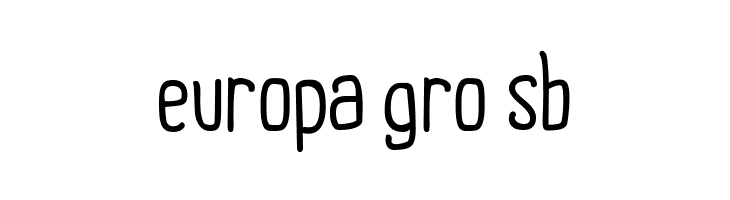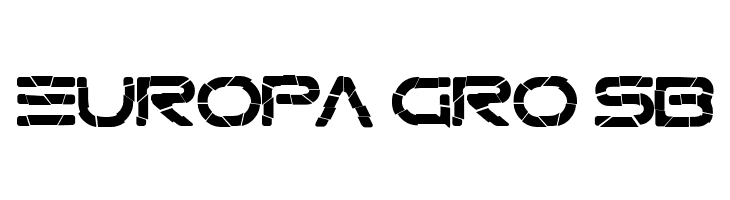
A sleek, modern font with geometric, monospaced characteristics.
( Roger White - web.archive.org/web/20120416090521/www.rogersfonts.org.uk/ )
A classic serif font with an open face design, offering elegance and readability.
( Jessy Naudin - facebook.com/Devlose )
A modern, geometric font with clean lines and consistent stroke width.
( Pixeluigi - Luis G. Galván - www.facebook.com/memohd25 )
A playful, modern font with rounded edges and a bold, approachable style.
( Qbotype Fonts - Carlos Daniel Matteoli - www.facebook.com/QbotypeFonts/ )
A fragmented, digital-inspired font with a bold, geometric style.